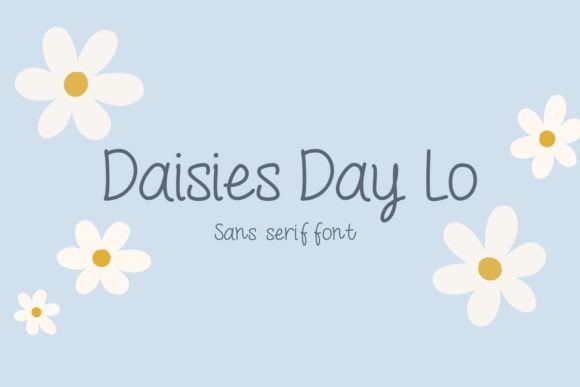
Daisies Day Lo Font: The Perfect Choice for Fun and Relaxed Designs
Are you looking for a font that can add a touch of fun and relaxation to your designs? Look no further than Daisies Day Lo Font. This cute and playful handwritten font is perfect for a variety of projects, from wedding invitations to greeting cards, logos, and more. In this article, we’ll take a closer look at Daisies Day Lo Font and explore its features, benefits, and uses.
What is Daisies Day Lo Font?
Daisies Day Lo Font is a handwritten font that exudes a carefree and informal style. Its casual vibe makes it perfect for designs that require a relaxed touch. The font is characterized by its playful and whimsical feel, making it ideal for projects that need a fun and creative edge.
Features of Daisies Day Lo Font
Daisies Day Lo Font has several features that make it a great choice for designers. Some of its key features include:
- Cute and playful design: The font has a unique and adorable design that is sure to capture the attention of your audience.
- Informal style: The font’s informal style makes it perfect for designs that require a relaxed and casual touch.
- Handwritten feel: The font has a handwritten feel that gives it a personal and authentic touch.
- Versatile: The font can be used for a variety of projects, from wedding invitations to greeting cards, logos, and more.
Benefits of Using Daisies Day Lo Font
There are several benefits to using Daisies Day Lo Font in your designs. Some of the benefits include:
- Adds a touch of fun and relaxation: The font’s playful and whimsical feel can add a touch of fun and relaxation to your designs.
- Perfect for creative projects: The font is ideal for creative projects that require a unique and imaginative approach.
- Easy to read: The font is easy to read, making it perfect for designs that require a clear and concise message.
- Customizable: The font can be customized to fit your design needs, making it a great choice for designers who want to add a personal touch to their work.
Uses of Daisies Day Lo Font
Daisies Day Lo Font can be used for a variety of projects, including:
- Wedding invitations: The font’s playful and whimsical feel makes it perfect for wedding invitations that require a touch of fun and romance.
- Greeting cards: The font is ideal for greeting cards that require a personal and authentic touch.
- Logos: The font can be used to create unique and memorable logos that capture the attention of your audience.
- Posters: The font is perfect for posters that require a bold and eye-catching design.
- Blogs: The font can be used to create engaging and readable blog posts that capture the attention of your audience.
- Clothing and accessories: The font can be used to create custom designs for clothing and accessories, such as t-shirts, bags, and more.
Tips for Using Daisies Day Lo Font
Here are some tips for using Daisies Day Lo Font in your designs:
- Use it for creative projects: The font is perfect for creative projects that require a unique and imaginative approach.
- Pair it with other fonts: The font can be paired with other fonts to create a unique and interesting design.
- Experiment with different colors: The font can be used with different colors to create a bold and eye-catching design.
- Keep it simple: The font can be used to create simple and elegant designs that capture the attention of your audience.
Daisies Day Lo Font is a cute and playful handwritten font that is perfect for designs that require a relaxed and fun touch. Its informal style and casual vibe make it ideal for a variety of projects, from wedding invitations to greeting cards, logos, and more. With its unique features, benefits, and uses, Daisies Day Lo Font is a great choice for designers who want to add a touch of fun and creativity to their work.
- What is Daisies Day Lo Font?: Daisies Day Lo Font is a handwritten font that exudes a carefree and informal style.
- What are the benefits of using Daisies Day Lo Font?: The font adds a touch of fun and relaxation to designs, is perfect for creative projects, easy to read, and customizable.
- What are the uses of Daisies Day Lo Font?: The font can be used for wedding invitations, greeting cards, logos, posters, blogs, clothing and accessories, and more.